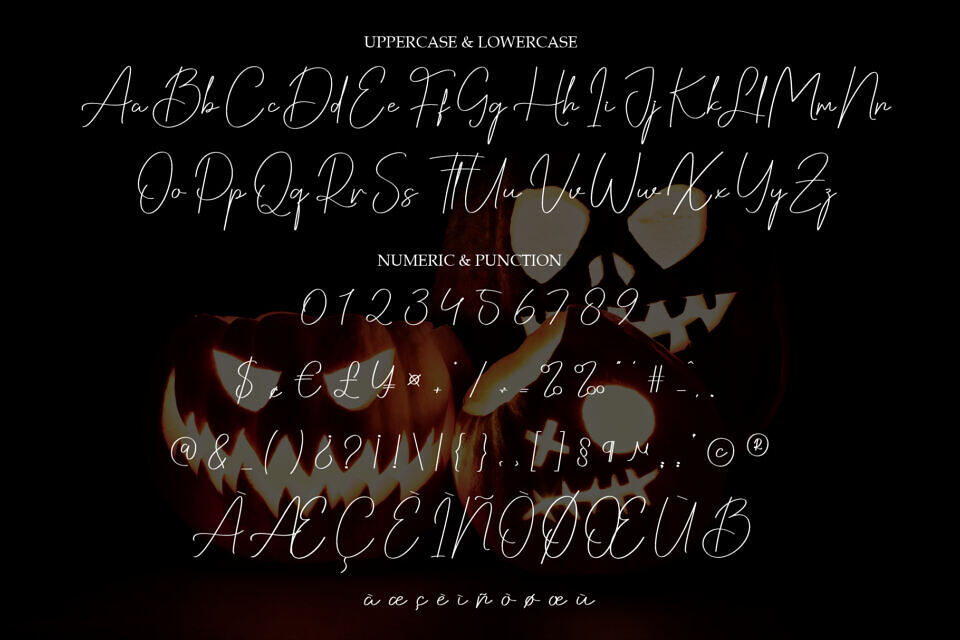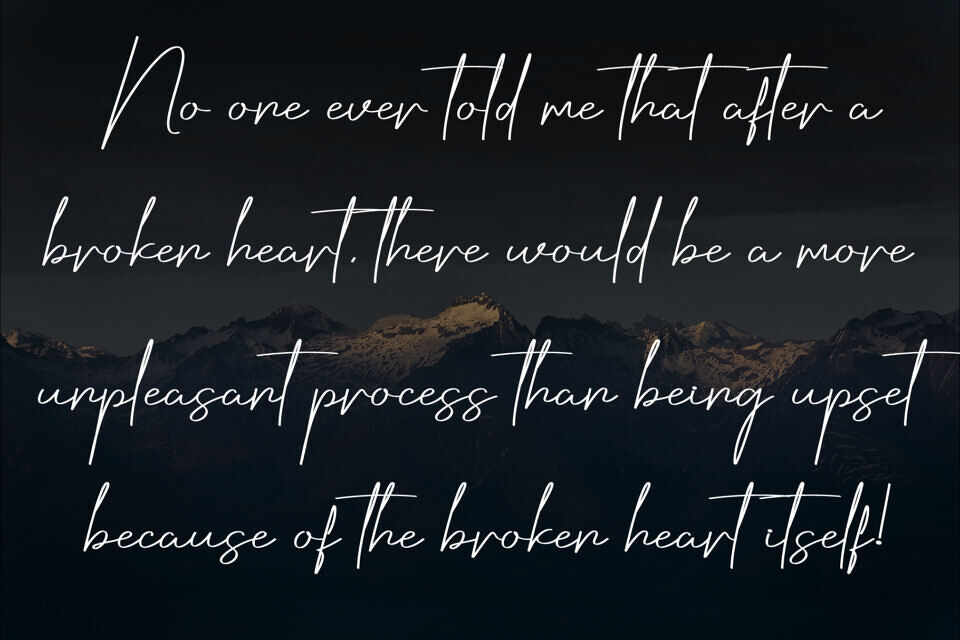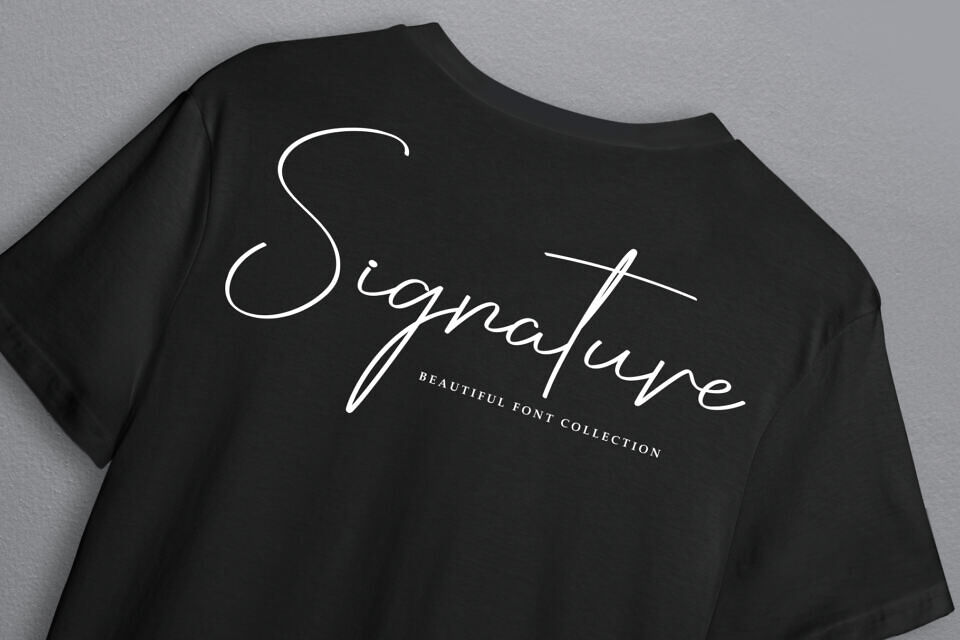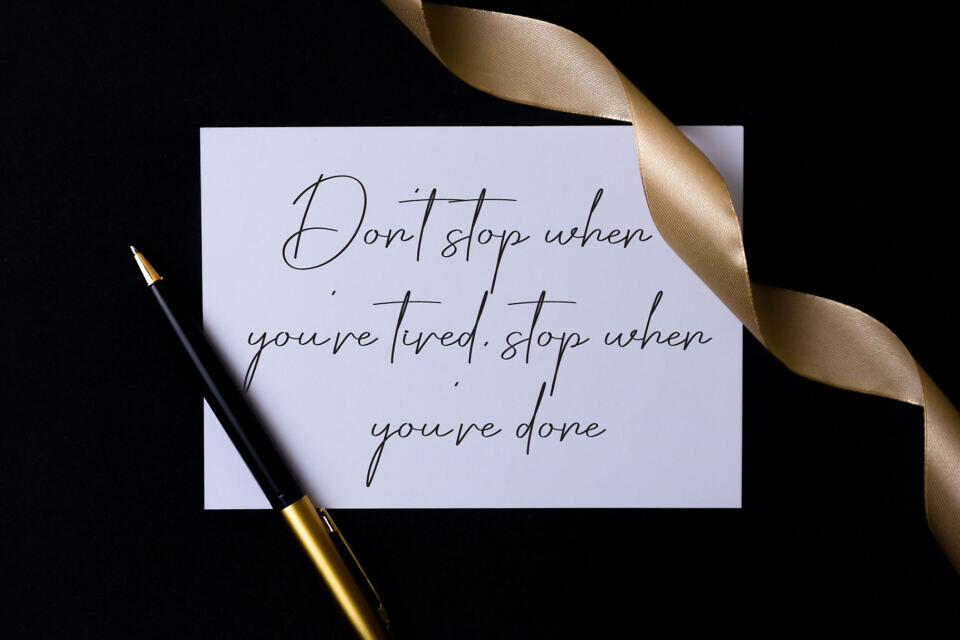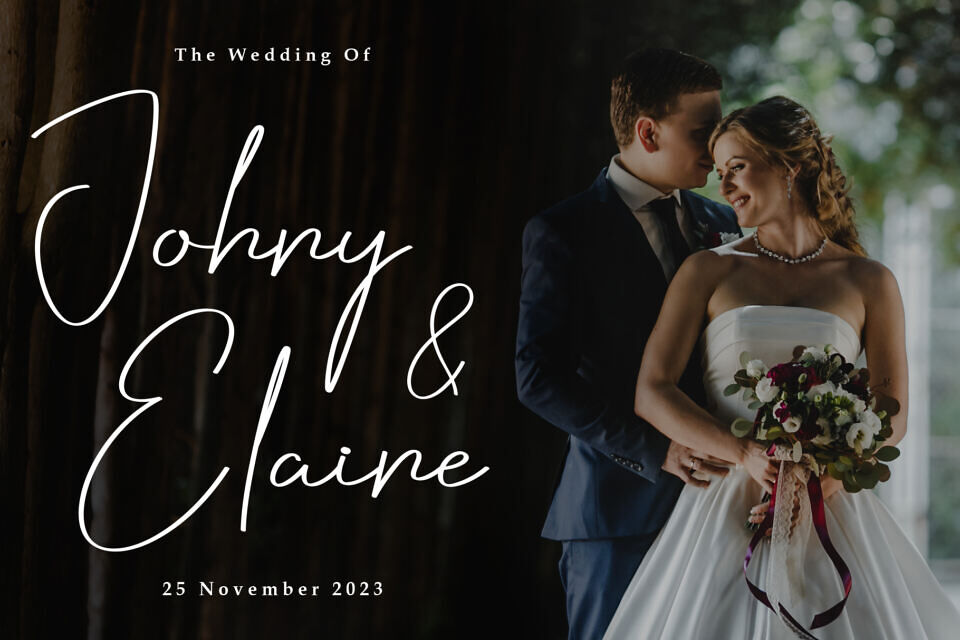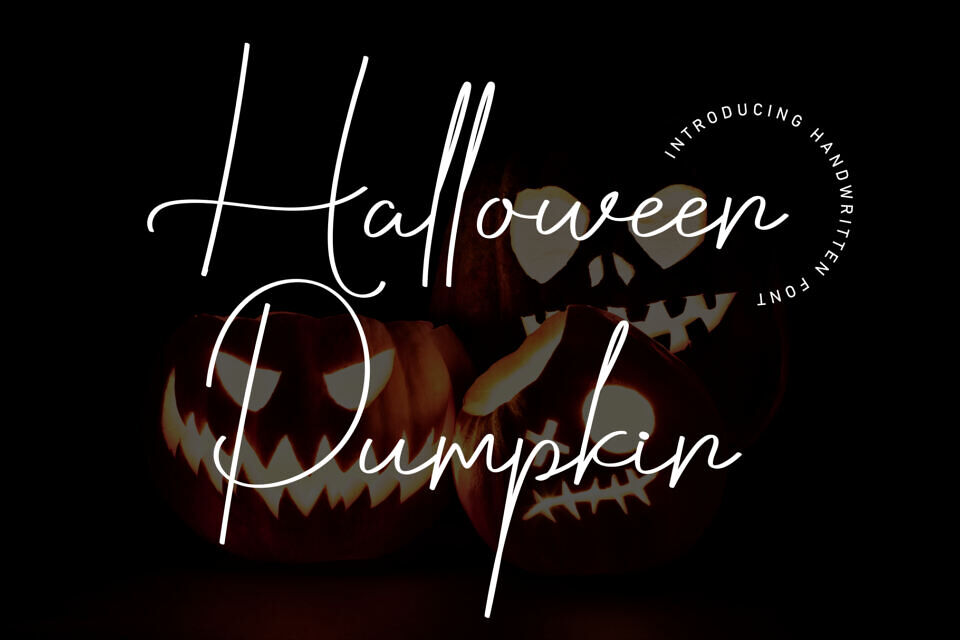
Halloween Pumpkin Font
Halloween Pumpkin is a playful, handwritten-style typeface with a smooth, flowing script. Its elegant, cursive design features soft, connected letters that exude a casual yet sophisticated vibe.
Perfect for personal projects like greeting cards, quotes, or branding, Halloween Pumpkin adds a touch of warmth and authenticity to any text. The font includes uppercase and lowercase letters, numbers, and punctuation. With its light, airy feel, this font is ideal for creating inviting, heartfelt designs.